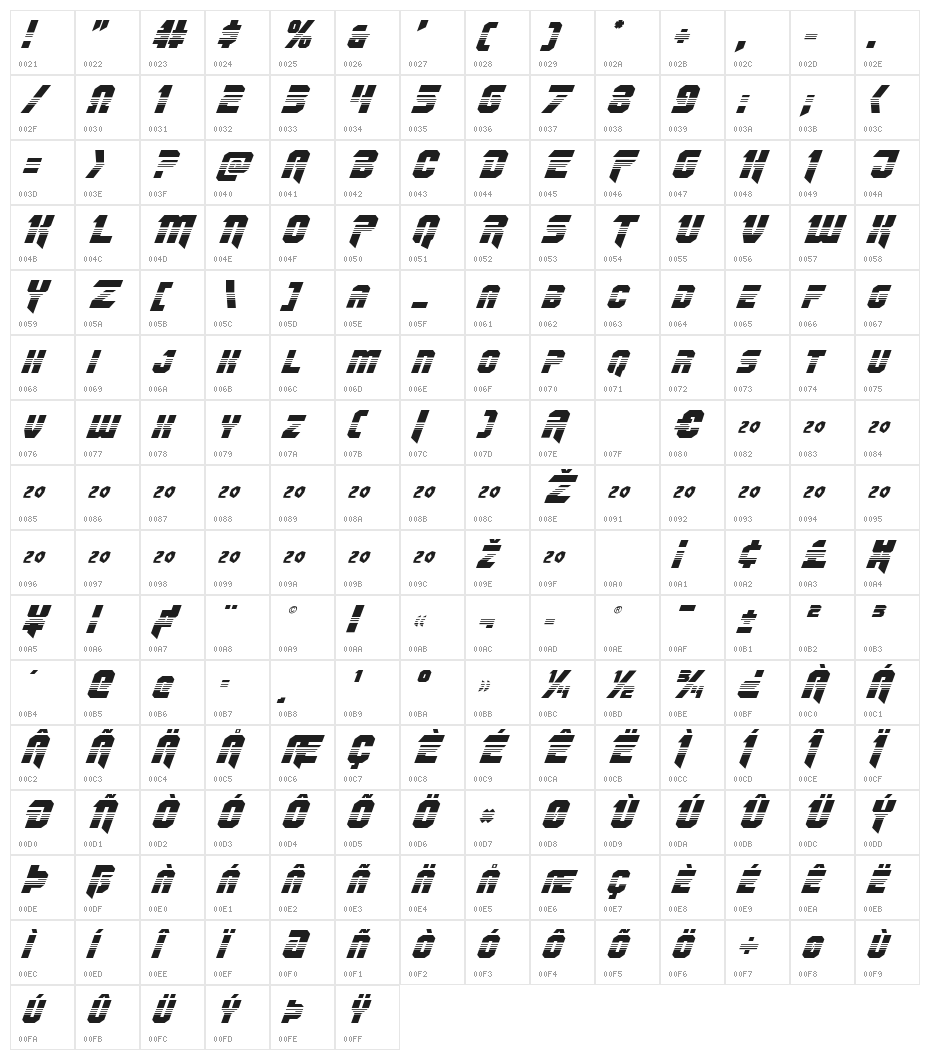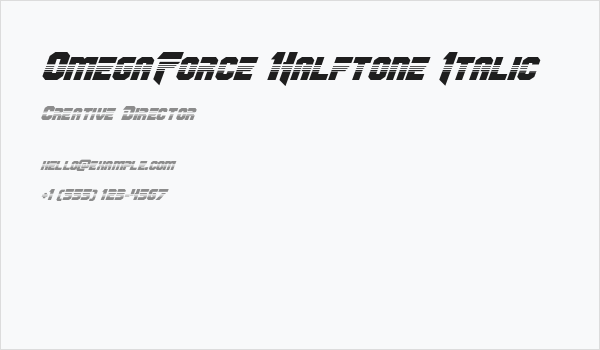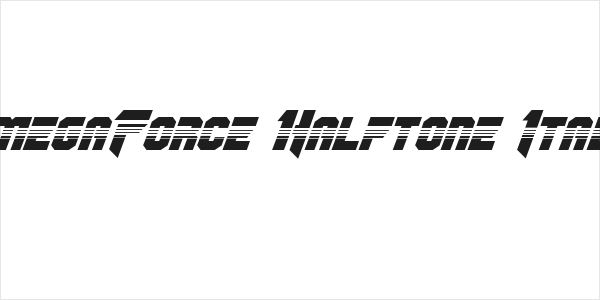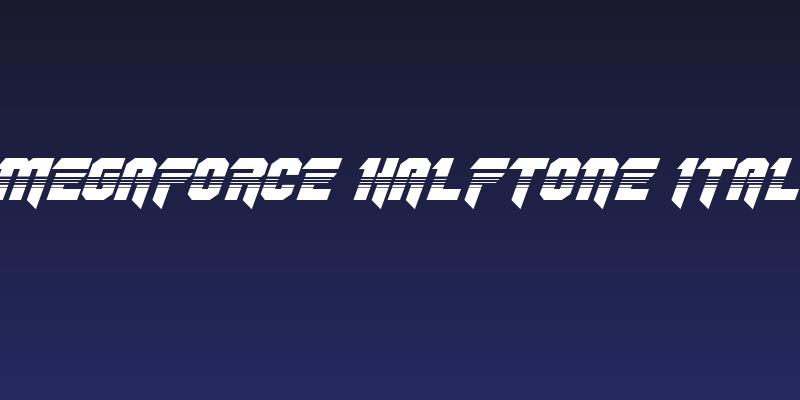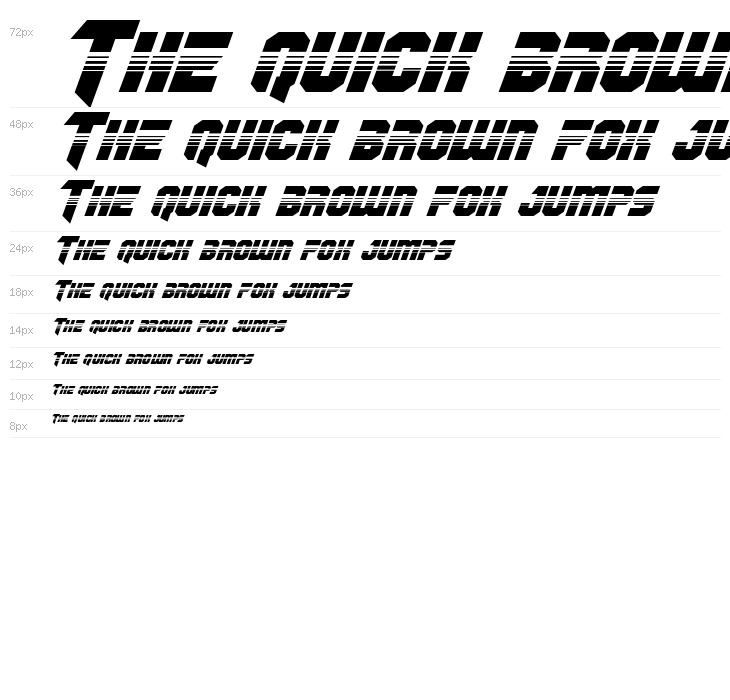
OmegaForce Halftone Italic Font
OmegaForce Halftone Italic Description
This font features a bold, dynamic design with a distinct halftone effect that gives it a futuristic and energetic appearance. The characters are italicized, adding a sense of motion and speed, which is further emphasized by the sharp, angular lines and geometric shapes. The uppercase and lowercase letters maintain a consistent style, with the uppercase being more prominent and commanding. The numbers and special characters are equally bold, ensuring uniformity across all elements. The halftone effect creates a gradient-like appearance within each character, adding depth and visual interest.
Overall StyleFuturistic, Energetic
Proposed ProjectsIdeal for sci-fi themed projects, video game titles, posters, and branding that requires a modern, energetic look.